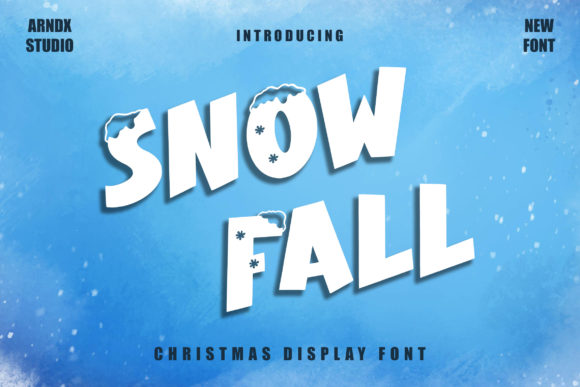
Dive into the realm of captivating storytelling with Snow Fall Font, a display font radiating playfulness and authenticity. Designed by the skilled hands of Arendxstudio, this font is an ode to the boundless imagination of childhood.
Picture this: Your comic book pages come alive with Snow Fall's vibrant hues, each letter dancing off the page with its own unique personality. The playful curves and whimsical swashes add a touch of magic to every word, drawing readers into your enchanting tale.
This PUA-encoded font grants you effortless access to a universe of glyphs and swashes, unleashing your creative potential. Let your imagination soar as you craft captivating logos that leap off business cards and posters, leaving an indelible mark on your audience.
Teachers, ignite your students' passion for learning with Snow Fall's cheerful demeanor. Design classroom materials that spark curiosity and make lessons feel like an enchanting adventure. Parents, transform bedtime stories into magical journeys with Snow Fall's enchanting characters. Watch as your little ones' eyes widen with wonder as they follow each twist and turn of the tale, carried away by the font's playful charm.